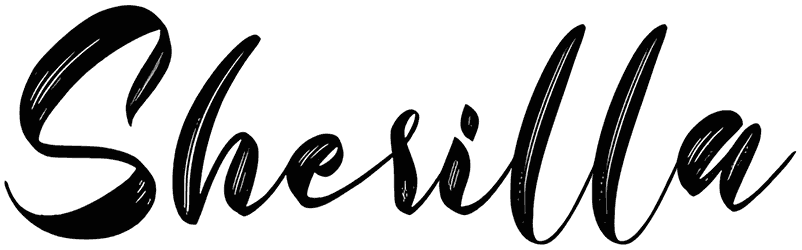
Sherilla Font
Since tapping into a recognizable style would be a guaranteed victory, utilizing a script font such as Sherilla can ensure the success of your illustrations, stickers, gift cards, invitations, or social media posts.
Due to its angular and tilted characters, this marvelous brush font can lead to a sense of momentum, softness, or professionalism. Just in case you require another masterpiece in the same category, we strongly recommend visiting the RB font collection.